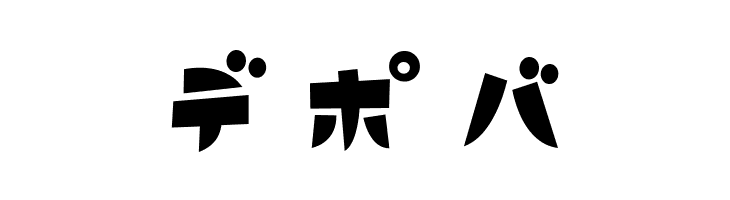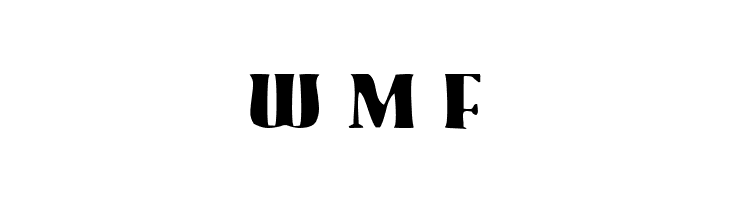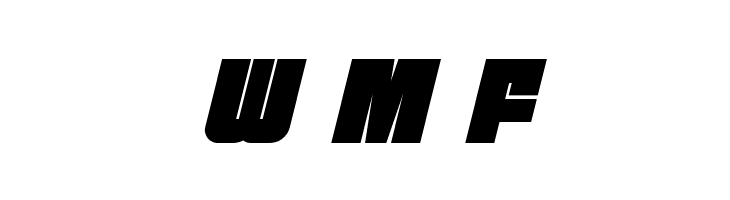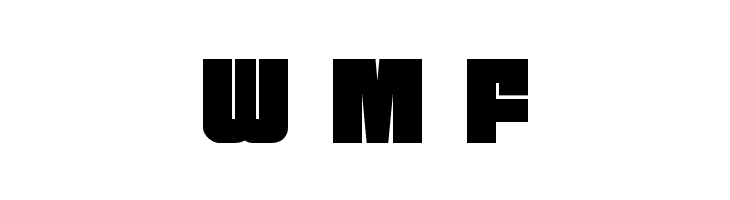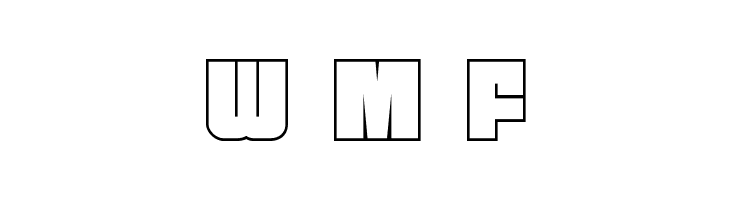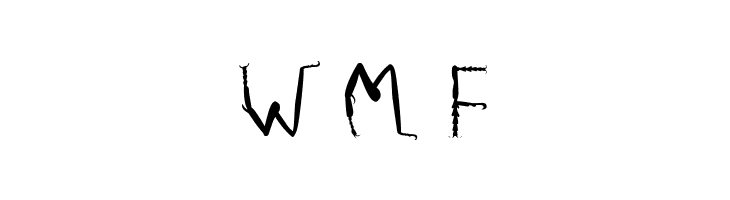
A bold, italicized font with a dynamic, retro-futuristic style.
A bold, left-slanted font with a modern and dynamic style.
A bold, geometric outline font with a strong, industrial aesthetic.
A bold, outlined, italic font with a modern, geometric style.
A bold, blocky font with strong, uniform strokes and minimal spacing.
A bold, playful font with exaggerated curves and a whimsical style.
A futuristic, geometric font with a digital, pixelated aesthetic.
A playful, bubbly font with a hand-drawn, whimsical style.
A jagged, hand-drawn font with an organic, edgy style.
Bold, angular, and geometric font with a modern style.
A bold, angular font inspired by ancient runic alphabets.
A bold, angular font inspired by ancient runic alphabets with an inline design.
A bold, outlined font with a dynamic and modern style.
A distressed, rugged font with a bold, eroded appearance.
A bold, oblique font with a modern and dynamic style.
A futuristic, geometric font with bold strokes and high contrast.
A futuristic and geometric font with angular letterforms and a modern aesthetic.
A futuristic, oblique font with sharp angles and smooth curves.
A bold, angular font with a playful and dynamic style.
A decorative font inspired by traditional Gaelic script with bold, angular forms.
A bold, geometric font with a futuristic and industrial aesthetic.
A bold, high-contrast font with a dramatic and striking style.